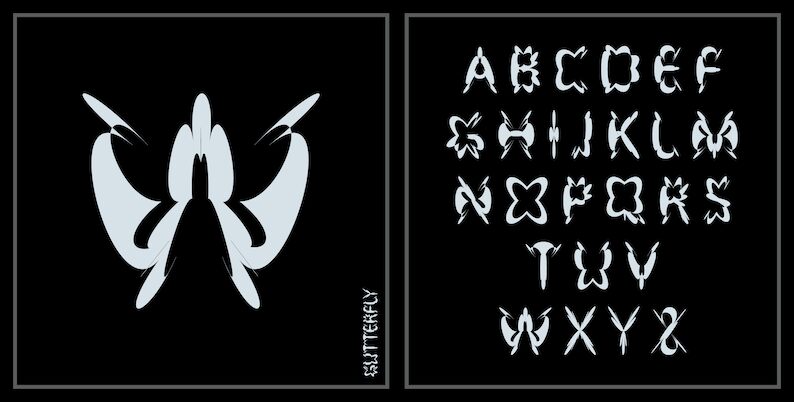
GutterflyRegular
Gutterfly font is a new sci-fi Psych-Future font designed by FontKawaiiCo.
Create cool, trendy, and modern designs with this futuristic psychedelic font. Great for video game, fantasy, and sci-fi key art and print media/magazine cover design.